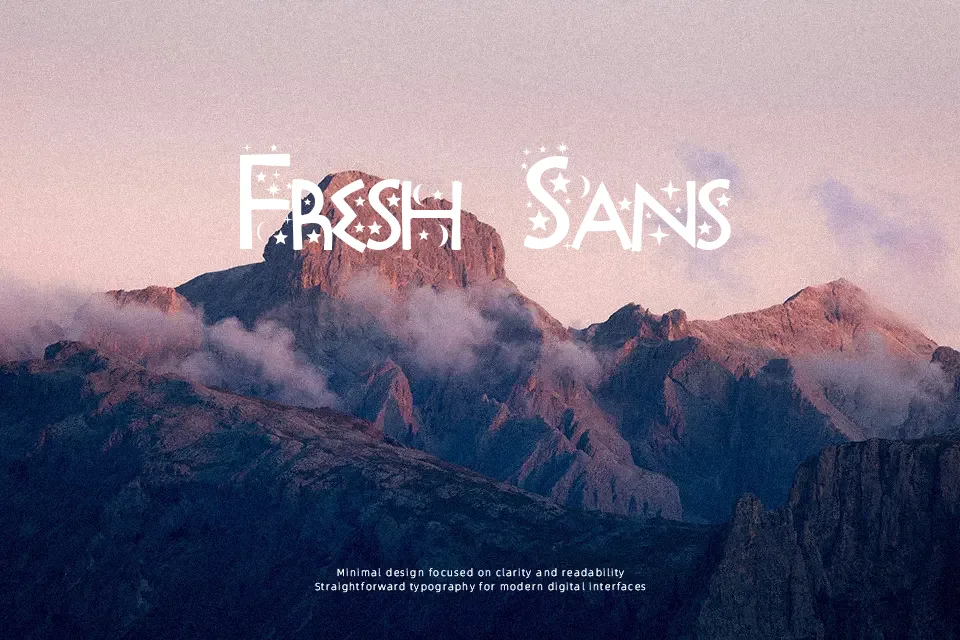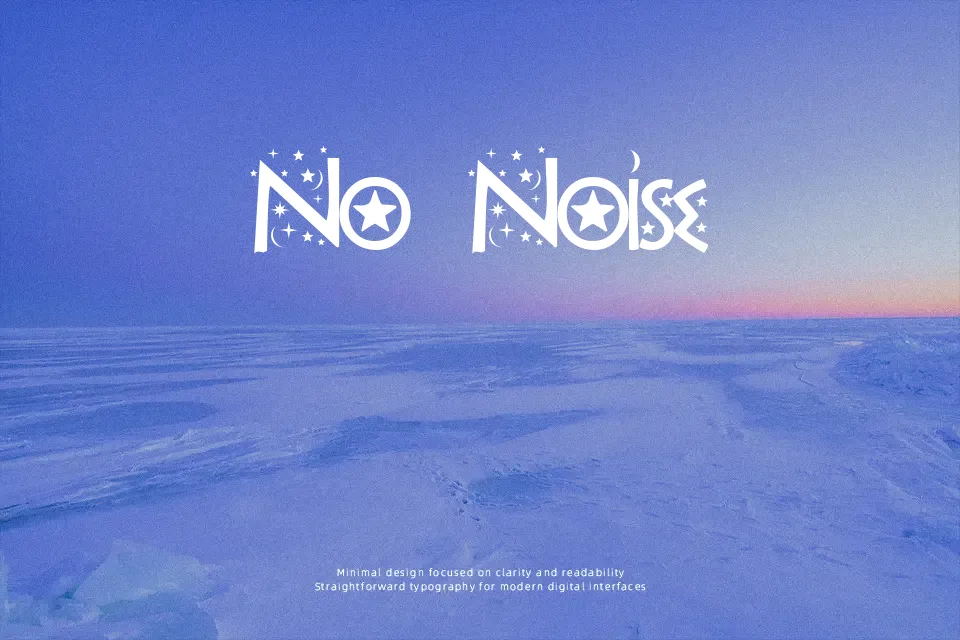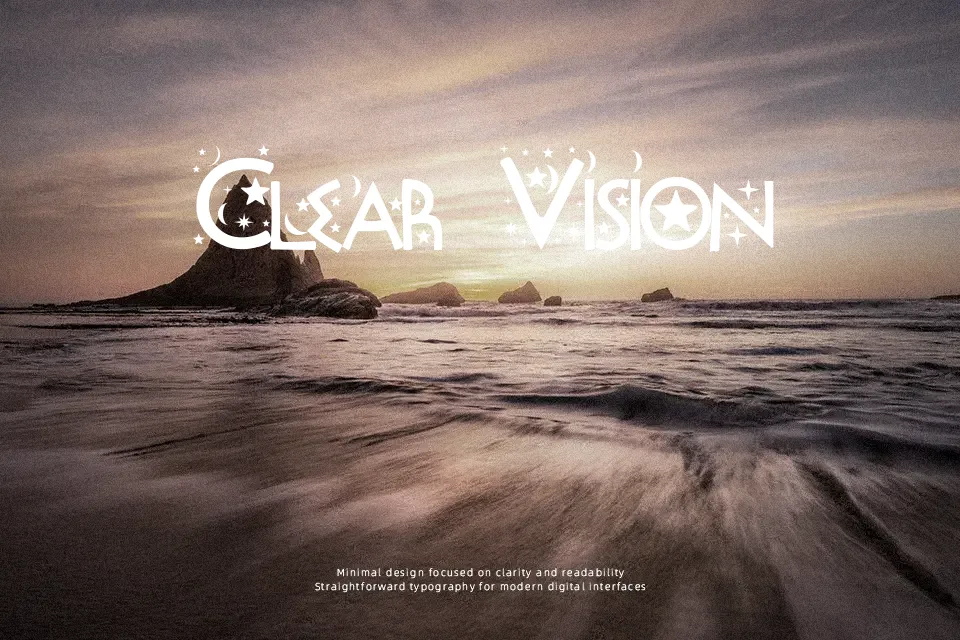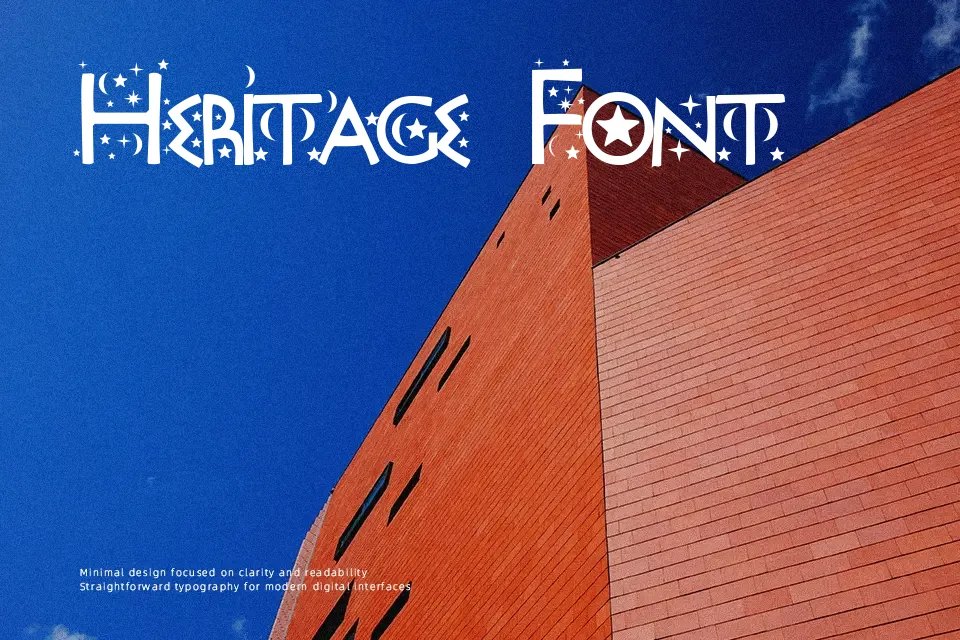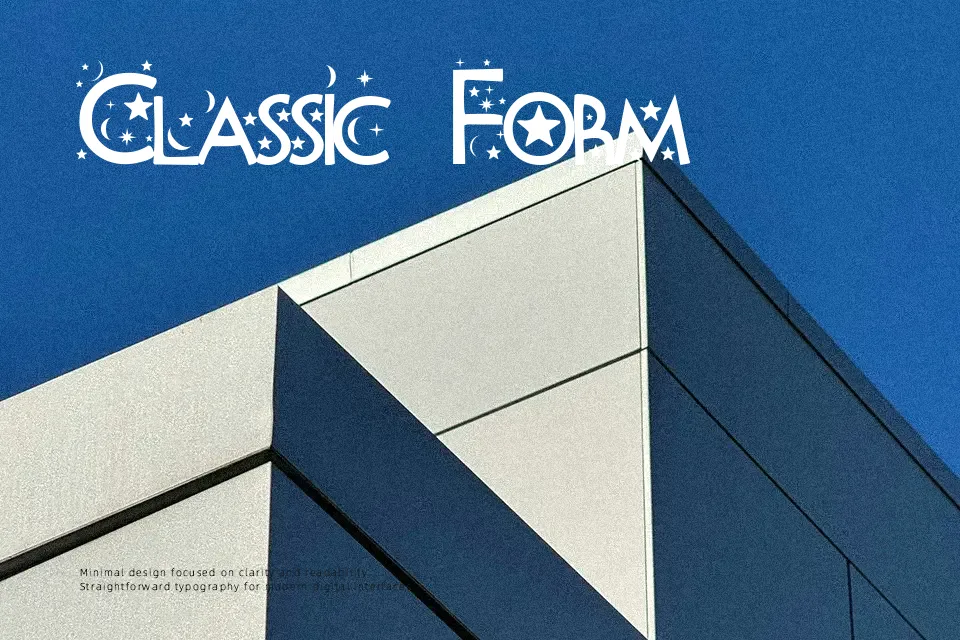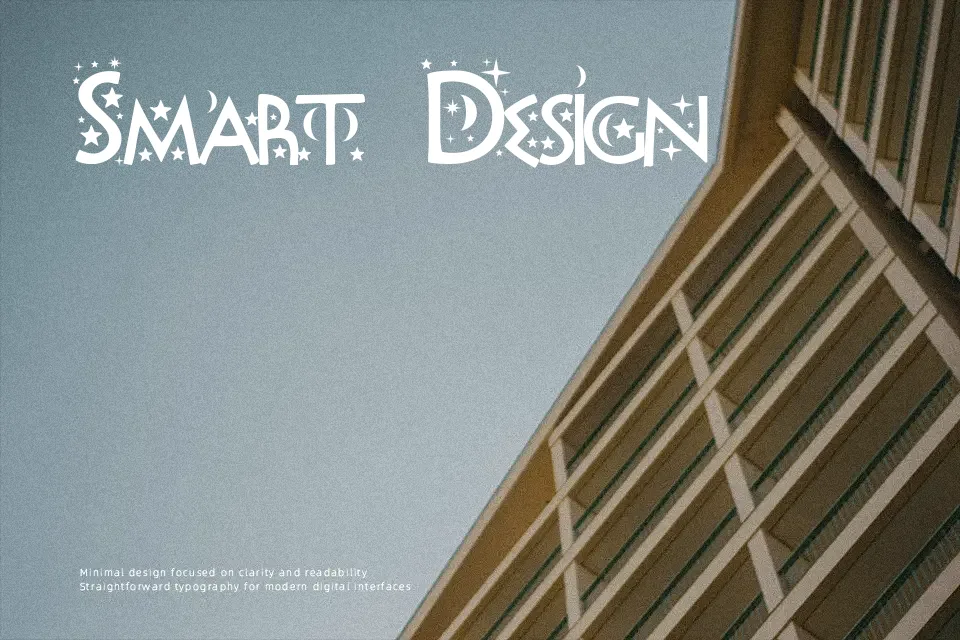
Night Sky Font
Designed by GregoryFonts
Night Sky presents bold, blocky letterforms filled with repeated star-shaped counters, creating a patterned texture across the line rather than smooth interior spaces. The strokes appear heavy and consistent, with minimal contrast, and many characters use squared structures that give the design a rigid, constructed feeling. Spacing between glyphs is fairly tight, so the stars visually blend, producing a continuous decorative band that reads best at larger display sizes. Proportions lean toward wide capitals, and the dense patterning reduces distinction between individual letters at smaller scales. As a result, the font works well for short words, titles, and logo-style treatments, while longer text becomes tiring to parse. The strong decorative pattern stands out in posters or thematic graphics, but it quickly sacrifices comfort and legibility in extended or small captions.
event posters with celestial themes
short headline text on decorative flyers
logo-style wordmarks for fantasy or night-themed projects
thematic titles for party invitations
small interface labels or captions
formal reports and business documents
dense editorial layouts or data tables